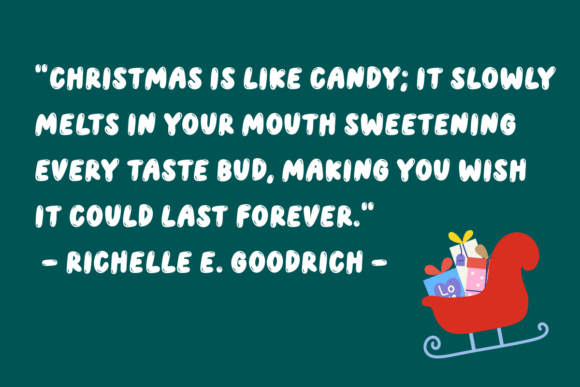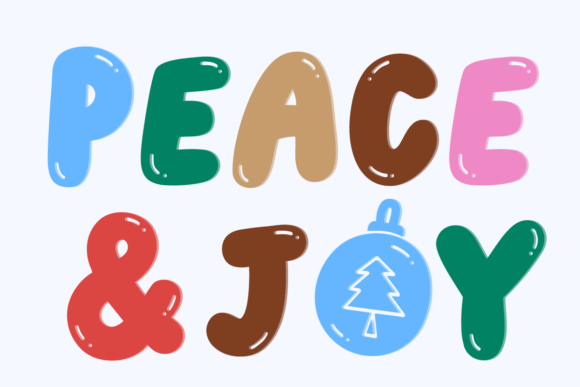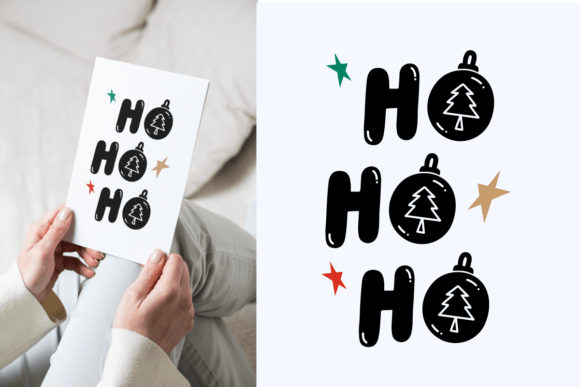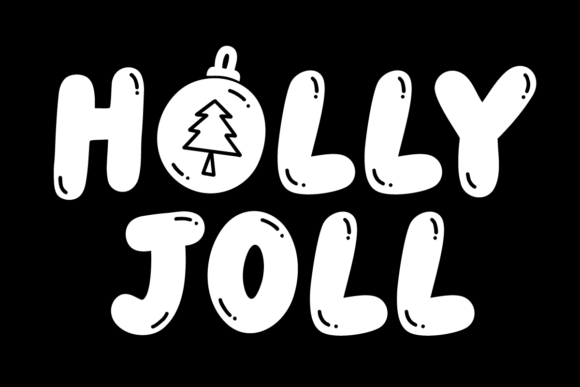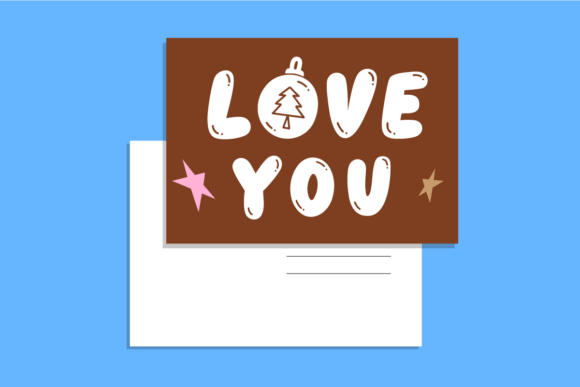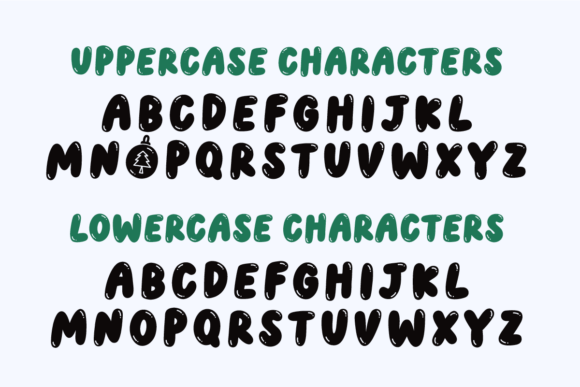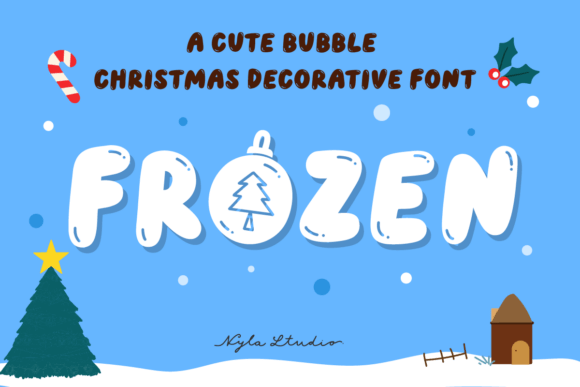
Introducing Frozen Font: The Perfect Addition to Your Christmas and Retro Design Projects
Are you looking for a font that can add a touch of whimsy and fun to your Christmas projects, retro designs, and playful quotes? Look no further than Frozen Font, a cute bubble decorative font that’s perfect for a wide range of creative endeavors. In this article, we’ll take a closer look at Frozen Font and explore its many uses, from Christmas invitations and mugs to stickers, posters, and more.
What is Frozen Font?
Frozen Font is a unique and eye-catching font that’s designed to resemble a bubble or a frosty, icy texture. Its cute and playful appearance makes it perfect for adding a touch of fun and personality to your designs. Whether you’re working on a Christmas project, a retro-inspired design, or a playful quote, Frozen Font is sure to make your work stand out.
Uses for Frozen Font
Frozen Font is an incredibly versatile font that can be used for a wide range of projects, including:
- Christmas Projects: Use Frozen Font to create festive Christmas invitations, cards, and decorations that are sure to delight.
- Retro Designs: Add a touch of nostalgia to your retro-inspired designs with Frozen Font’s fun and playful appearance.
- Playful Quotes: Use Frozen Font to create eye-catching and engaging quotes that are perfect for social media, posters, and more.
- Shirts and Mugs: Create fun and unique apparel and accessories with Frozen Font, perfect for gifts or personal use.
- Stickers and Packaging: Add a touch of personality to your stickers, labels, and packaging with Frozen Font’s cute and playful design.
- Posters and Logos: Use Frozen Font to create eye-catching posters and logos that are sure to grab attention.
- Greeting Cards: Create festive and fun greeting cards for any occasion with Frozen Font.
Why Choose Frozen Font?
So why choose Frozen Font for your next project? Here are just a few reasons:
- Unique and Eye-Catching: Frozen Font is a one-of-a-kind font that’s sure to make your designs stand out.
- Versatile: Frozen Font can be used for a wide range of projects, from Christmas and retro designs to playful quotes and more.
- High-Quality: Frozen Font is a high-quality font that’s designed to produce crisp and clear results, even at small sizes.
Tips for Using Frozen Font
Here are a few tips for getting the most out of Frozen Font:
- Experiment with Colors: Frozen Font looks great in a wide range of colors, so don’t be afraid to experiment and find the perfect hue for your project.
- Mix and Match: Combine Frozen Font with other fonts and design elements to create unique and eye-catching designs.
- Pay Attention to Size: Frozen Font is designed to be clear and legible, even at small sizes. However, be sure to test your design at different sizes to ensure it looks great in all applications.
Frozen Font is a fun and versatile font that’s perfect for a wide range of creative projects. Its unique and eye-catching design makes it perfect for adding a touch of personality to your Christmas projects, retro designs, playful quotes, and more. Whether you’re a designer, crafter, or DIY enthusiast, Frozen Font is sure to become a go-to font in your collection.